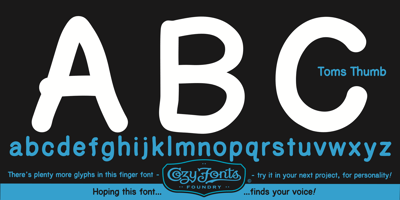
Toms Finger
Toms Finger font
Toms Finger Font Family was designed by Tom Nikosey and published by CozyFonts. Toms Finger contains 3 styles and family package options. Toms Finger Family fonts is a hand drawn sans serif series containing Regular weight (Toms Finger), Bold weight (Toms Thumb), and Light weight (Toms Pinky). Drawn entirely using his finger tip on a tablet Tom created this font to be user-friendly for Notes, Signs, Posters, Ads, Captions or anything where the writer wants to convey a casual, non invasive voice in the copy. Toms Finger Family is legible in a wide range of sizes in all weights.